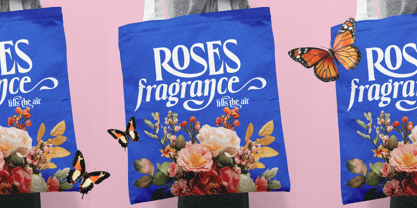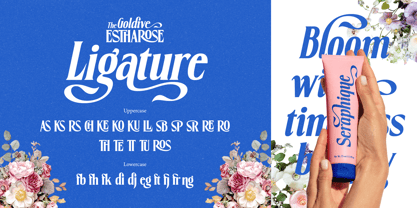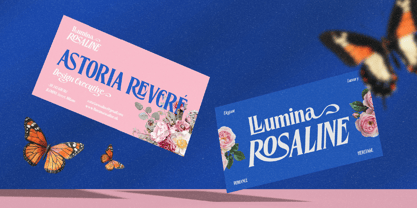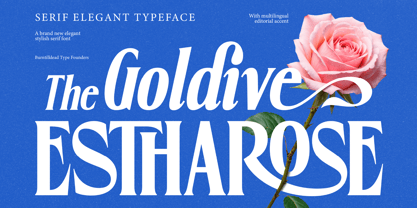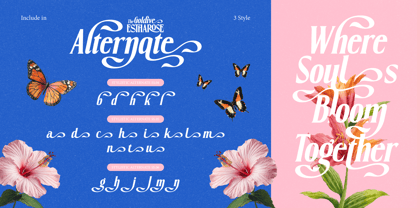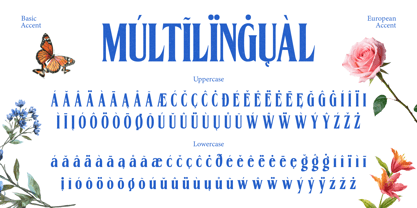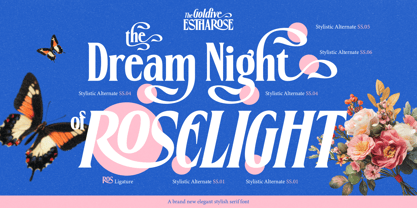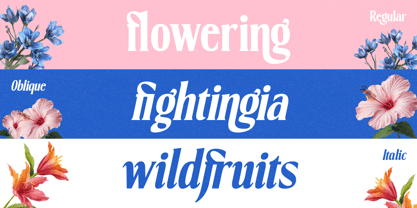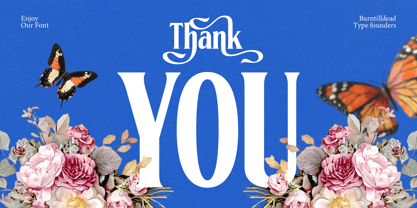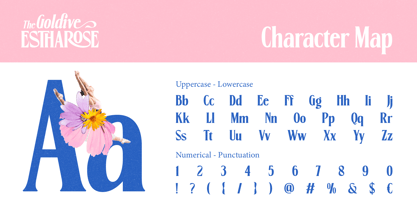
Goldive Estharose
The Goldive Estharose Font Family was designed by Meidy Meichico and published by Artisan Themes. Goldive Estharose contains 3 styles and family package options. More about this family
Goldive Estharose is a modern elegant serif font designed to bring sophistication and charm into your projects. With stylish curves, sharp details, and timeless editorial vibes, this typeface is perfect for logos, wedding invitations, fashion branding, magazine layouts, and classy social media designs.
It comes with regular, oblique, and italic styles, multilingual support, and a complete set of uppercase, lowercase, numbers, and punctuation—making it versatile for both digital and print use. If you’re looking for a font that feels romantic, professional, and high-end, Goldive Estharose is your go-to choice.
Make your designs stand out with a typeface that’s not only beautiful but also easy to pair with other fonts. Goldive Estharose is here to give your creative work the touch of elegance it deserves.